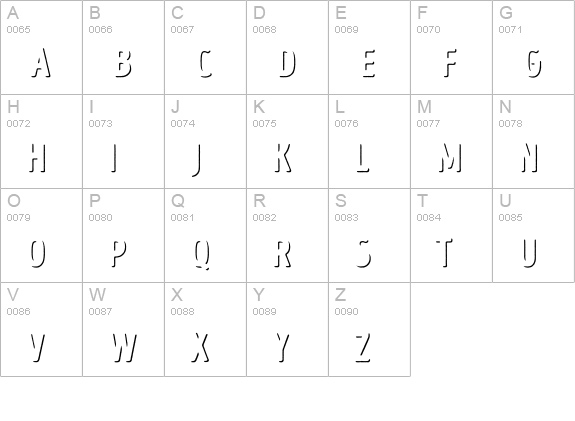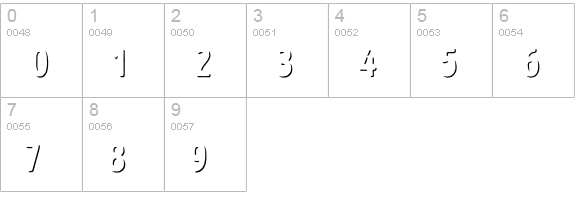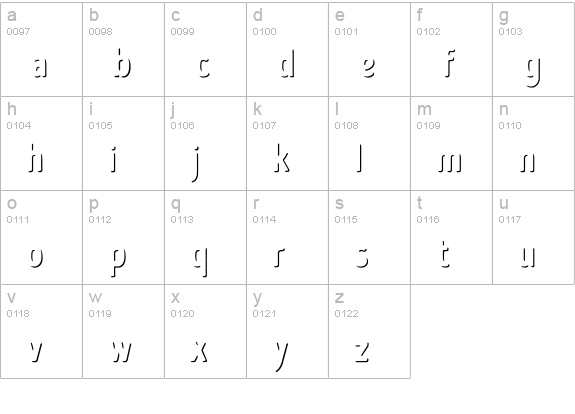
Intro Head B Shade Font Details
Intro Head B Shade font is a stunning display typeface that exudes modernity and sophistication. Its sleek and bold design makes it perfect for eye-catching headlines and titles. The unique shading effect adds depth and dimension to each letter, making your text stand out with a touch of elegance. This versatile font is ideal for various design projects, from branding to posters to social media graphics. Whether you're looking to make a statement or add a touch of flair to your designs, Intro Head B Shade font is sure to make an impact. Best of all, Intro Head B Shade font is available for free download at FontsMarket.com. So you can easily access this stylish font and elevate your designs without any cost. Don't miss out on this fantastic opportunity to enhance your projects with the sophisticated charm of Intro Head B Shade font.